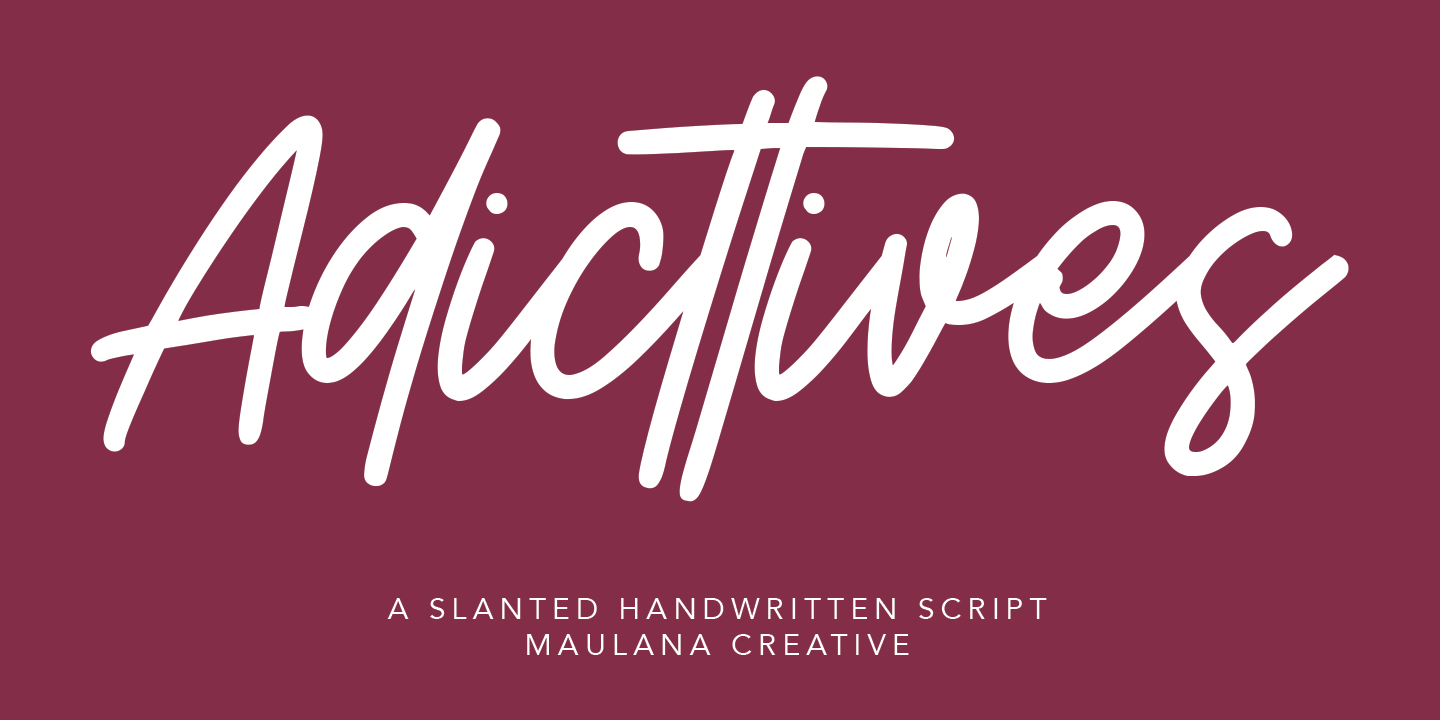
Adicttives Font is perfect for bold fashion branding, urban streetwear logos, dynamic music album covers, edgy poster design, contemporary art exhibitions, modern nightclub promotions, youth-oriented marketing campaigns, trendy social media graphics, and cutting-edge advertising materials.
What makes Adicttives Font exciting is its bold personality and contemporary edge that captures the energy and attitude of modern street culture and urban aesthetics. This striking typeface features dynamic letterforms and powerful character design that commands attention and communicates confidence, rebellion, and authenticity. The font's distinctive style makes it perfect for brands targeting younger demographics and creative industries seeking to make a bold statement.
Adicttives Font family includes multiple impactful variations: Regular, Bold, Light, Black, Italic, Condensed, Extended, Outline, and Shadow versions. The family also features stylistic alternates, urban-inspired ligatures, decorative elements, and street art-style flourishes that enhance its contemporary appeal and creative flexibility.
The architectural boldness of Adicttives Font reflects modern urban design principles and contemporary typography trends. Each character has been carefully constructed to maximize visual impact while maintaining excellent readability. The font's powerful presence creates memorable brand impressions that resonate with audiences seeking authentic, cutting-edge design experiences.
Fashion and streetwear brands will find Adicttives Font indispensable for communicating urban authenticity and contemporary style. The font's edgy appearance appeals to fashion-forward consumers who value originality and cultural relevance. Its bold character helps establish brand identity in competitive fashion markets while connecting with trend-conscious audiences.
Music industry professionals benefit from Adicttives Font's ability to communicate energy, creativity, and artistic expression. The font's dynamic character enhances album artwork, concert promotions, and artist branding materials while maintaining legibility across various applications. Its contemporary appeal resonates with modern music audiences across multiple genres.
Digital platforms showcase Adicttives Font's exceptional performance in social media campaigns, website headers, and mobile applications. The font maintains its bold impact whether displayed on large screens or mobile devices, ensuring consistent brand representation. Its optimized design provides excellent screen rendering across different browsers and operating systems.
Entertainment and nightlife venues appreciate Adicttives Font's ability to capture excitement and urban energy in promotional materials. The font's powerful presence creates compelling event marketing that drives attendance and engagement. Its contemporary character appeals to nightlife audiences seeking authentic entertainment experiences.
Print applications featuring Adicttives Font deliver stunning results in magazines, posters, and promotional materials. The font's bold reproduction ensures excellent visibility and impact across various printing methods. Its striking appearance cuts through visual clutter while maintaining professional quality standards.
Adicttives Font represents the evolution of urban typography, combining street culture authenticity with professional design excellence to meet the demands of contemporary creative communications.